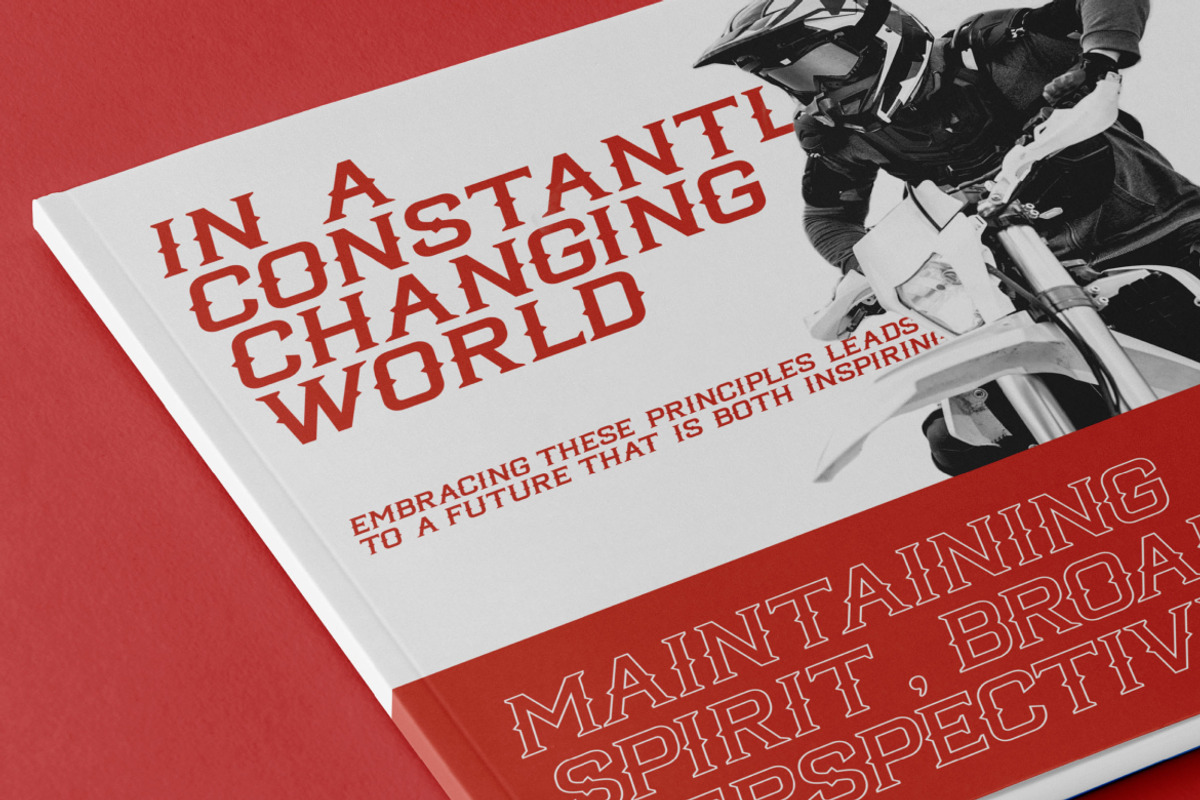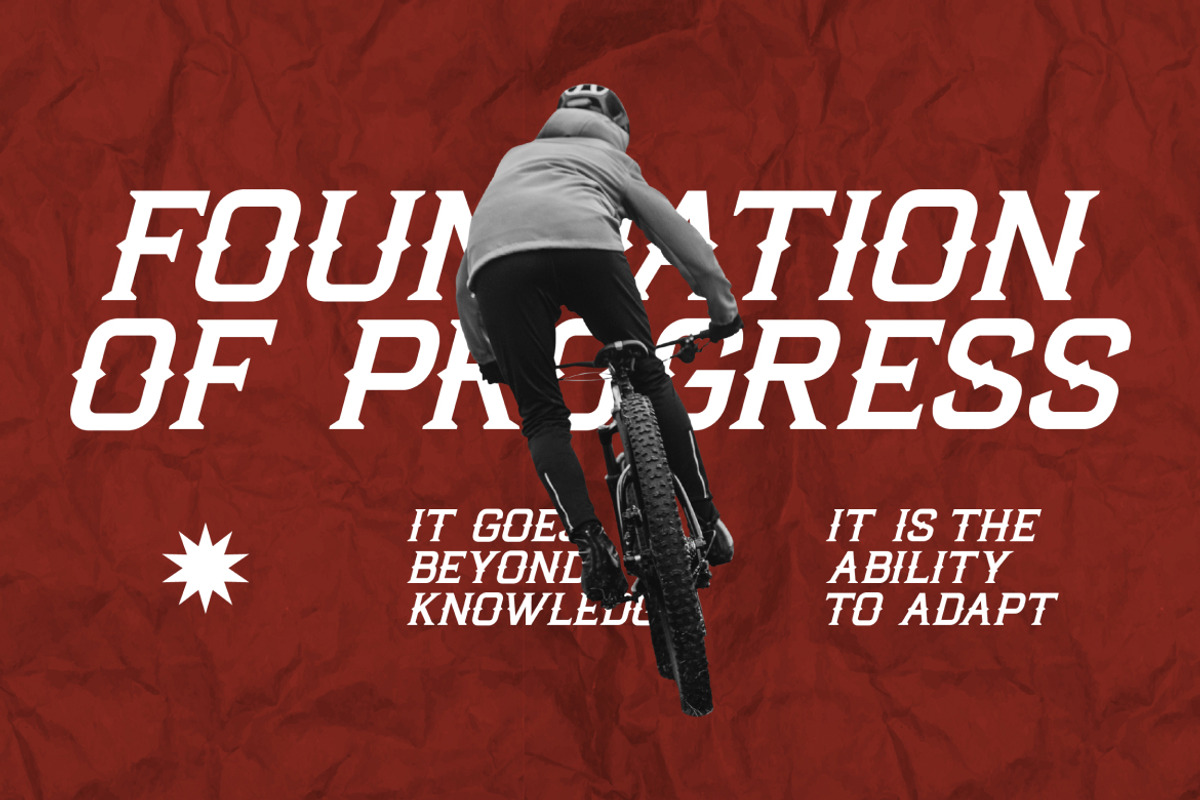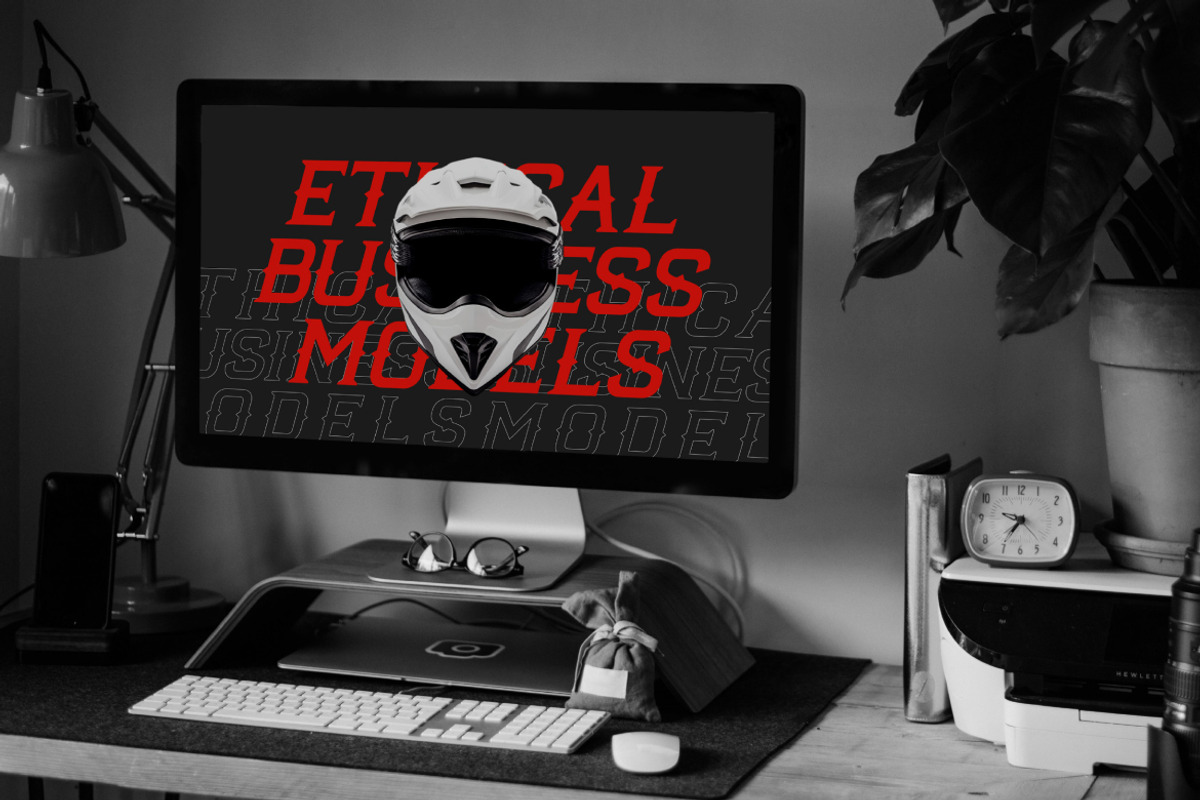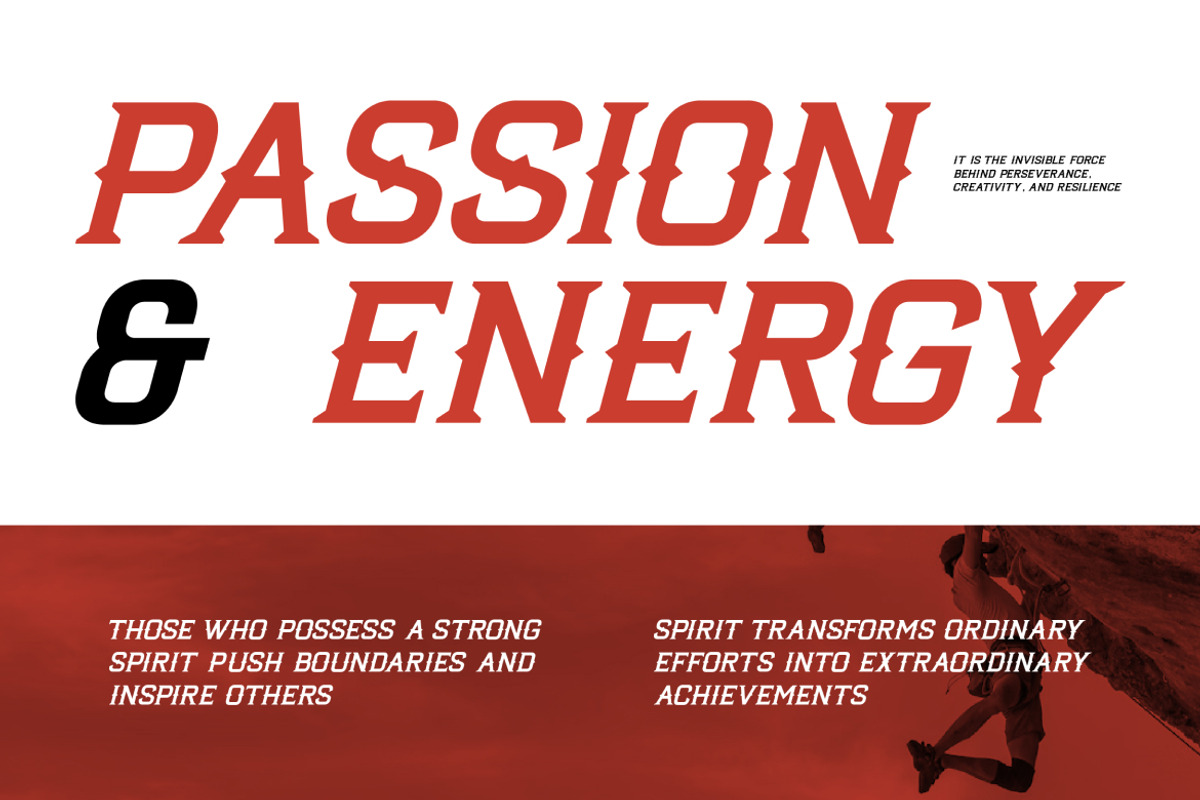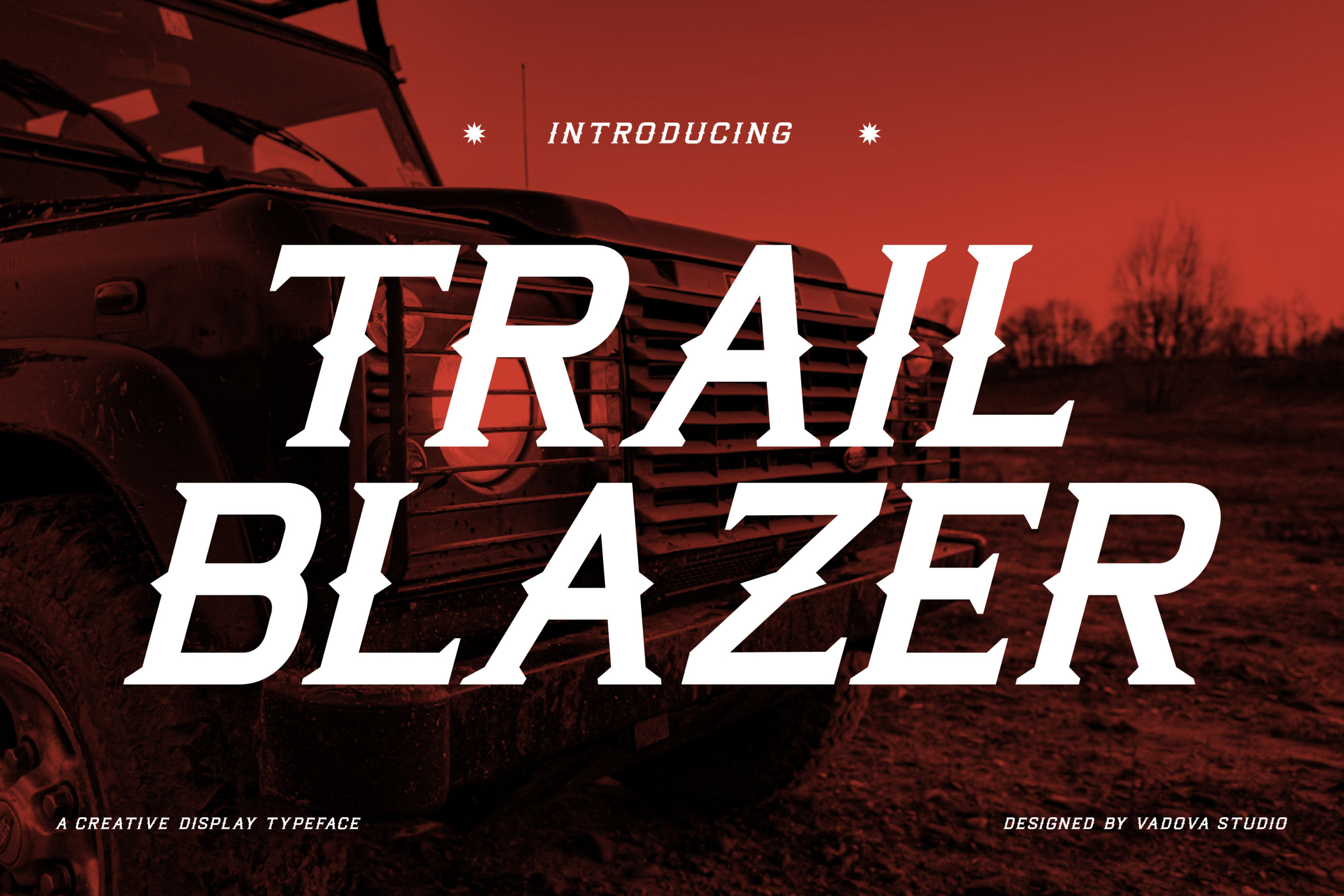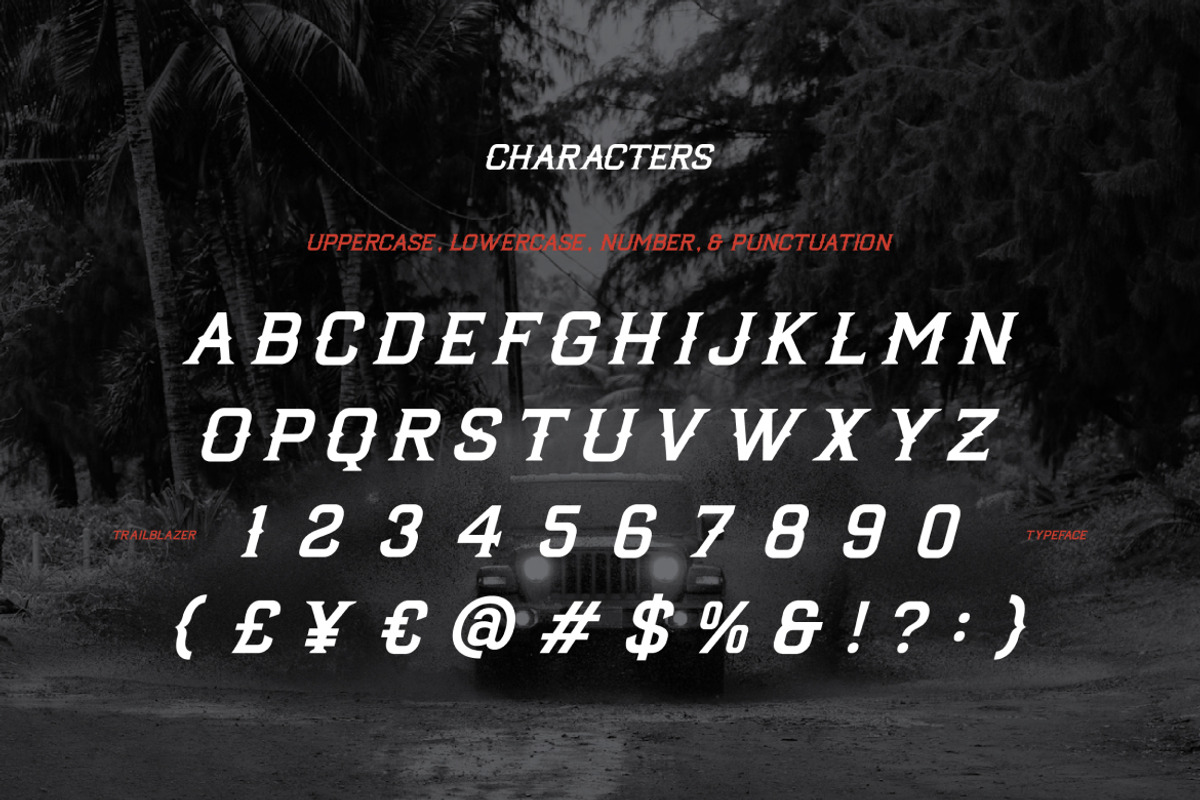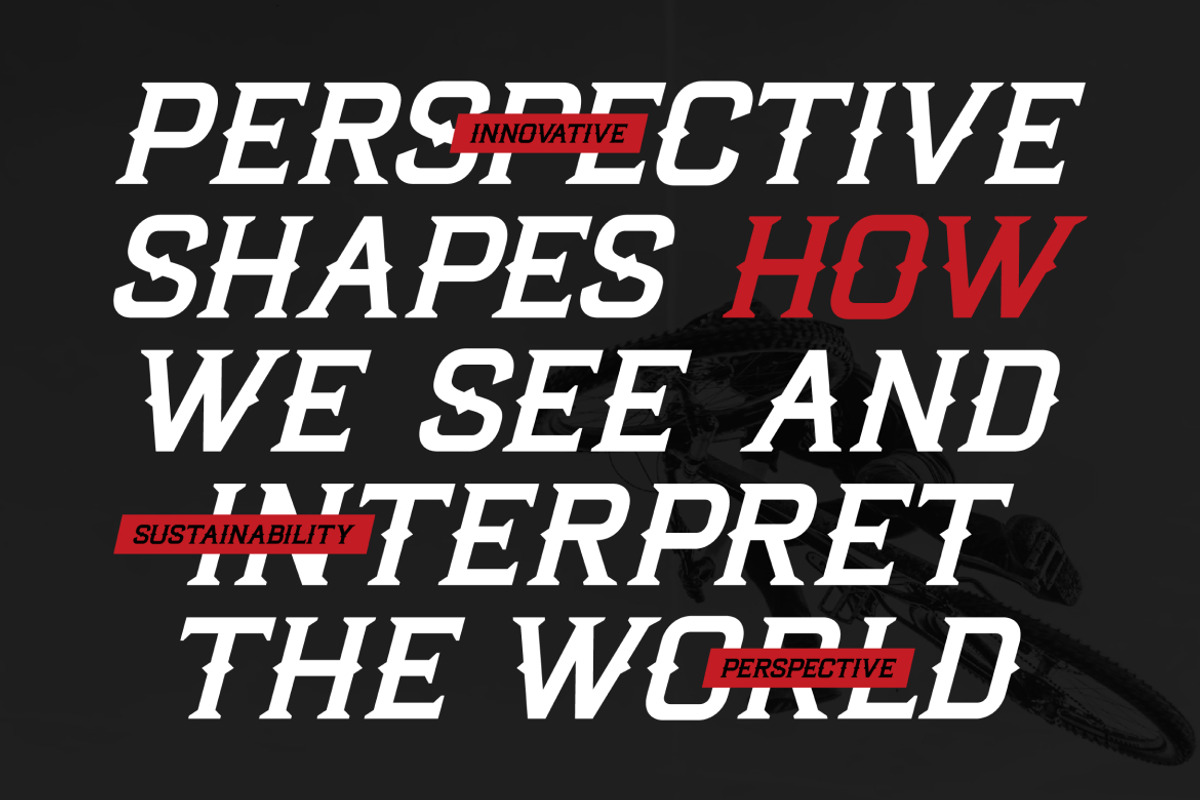
TrailBlazer Creative Typeface Font
Trail Blazer is a powerful display typeface inspired by off-road adventure, motorsport energy, and outdoor exploration. Featuring sharp edges, dynamic slants, and rugged forms, this font is designed to create impact in posters, racing visuals, automotive branding, sports campaigns, and action-driven layouts. Trail Blazer is ideal for graphic designers, automotive brands, motorsport communities, outdoor adventure companies, event organizers, gamers, and creative studios that want strong, aggressive, and high-impact typography for branding, marketing, posters, social media, and promotional materials.
Trail Blazer is perfect for projects that need speed, strength, and adrenaline. It fits automotive brands, off-road events, motocross posters, extreme sports campaigns, YouTube thumbnails, gaming titles, promotional banners, and any creative project that requires bold and fearless typography.
Built for speed, crafted for impact Trail Blazer leads the way